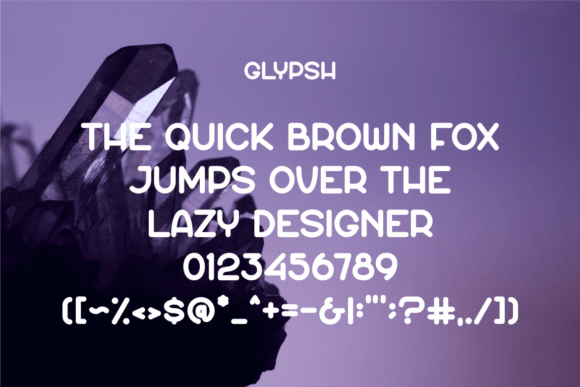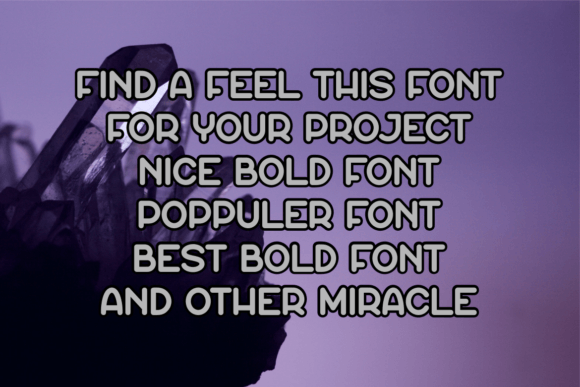
Introduction to Jackly Andromeda Font
Jackly Andromeda is an interesting bold display font as it is rounded at the ends and uses circle-scale geometry in its creation.
👤 Author Monoletter
It looks precise and soft and is suitable for all kinds of situations .
Why Choose Jackly Andromeda Font?
Jackly Andromeda Font offers exceptional quality and versatility, making it a valuable addition to your design toolkit. Whether you’re creating for personal projects or commercial use, Jackly Andromeda Font delivers professional results.